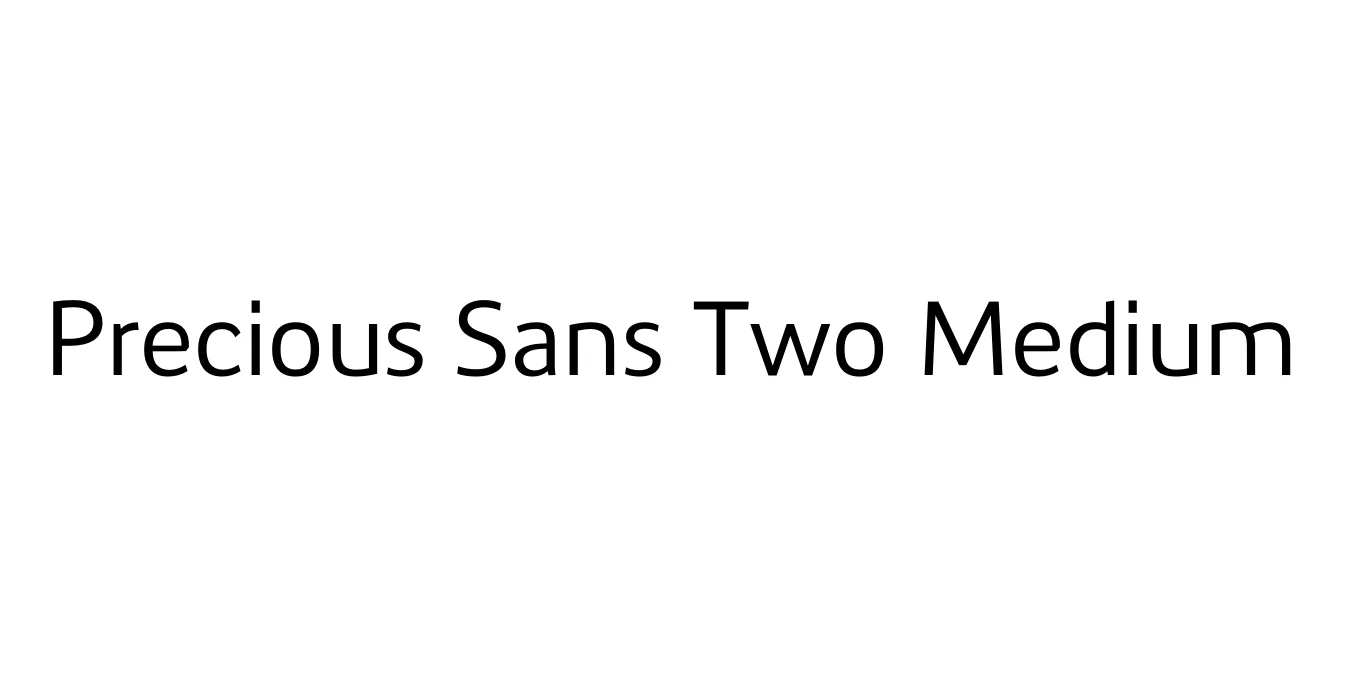
Precious Sans Two Medium
Designed by Nick Cooke
Precious Sans Two Medium is a sophisticated humanist sans-serif typeface designed by Nick Cooke and released through the G-Type foundry. This iteration serves as a refined update to the original Precious Sans, focusing on improved technical performance and optimized letterforms for modern design environments. The typeface is celebrated for its harmonious balance between organic, handwritten influences and clean, geometric precision, making it a highly legible choice for both print and digital platforms.
The Medium weight of the family acts as a versatile anchor, providing enough substance for display purposes while remaining light enough for extended reading. Its distinctive character is most visible in the unique terminals and open counters, which prevent the font from appearing too rigid. Since its release, Precious Sans Two has established itself as a reliable workhorse for designers who require a professional aesthetic that retains a sense of approachability and distinct personality.
Precious Sans Two Medium Best Uses
Highly effective for creating a reliable and modern brand image.
Perfect for magazine body copy and secondary headings.
Ensures excellent legibility on high-resolution displays.
Clear and open apertures make it suitable for wayfinding and architectural graphics.